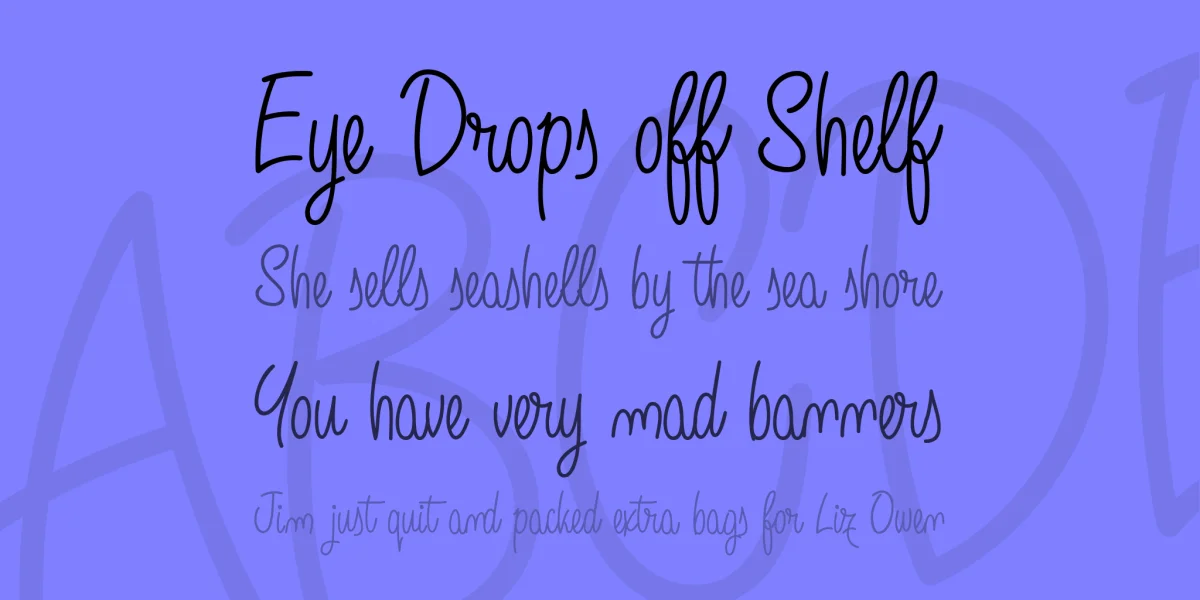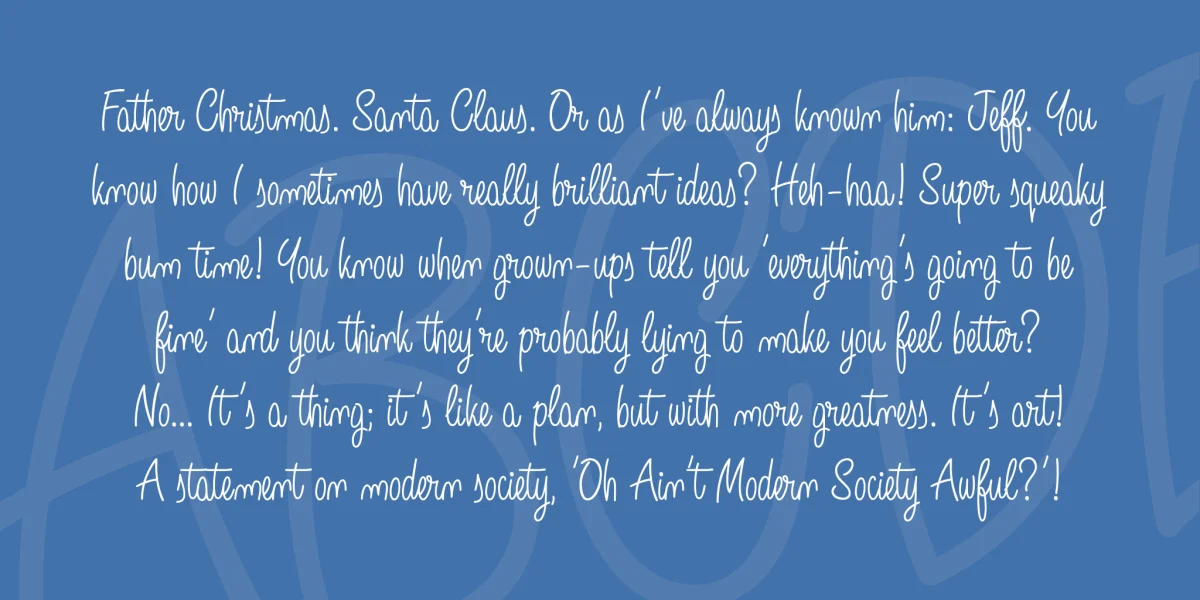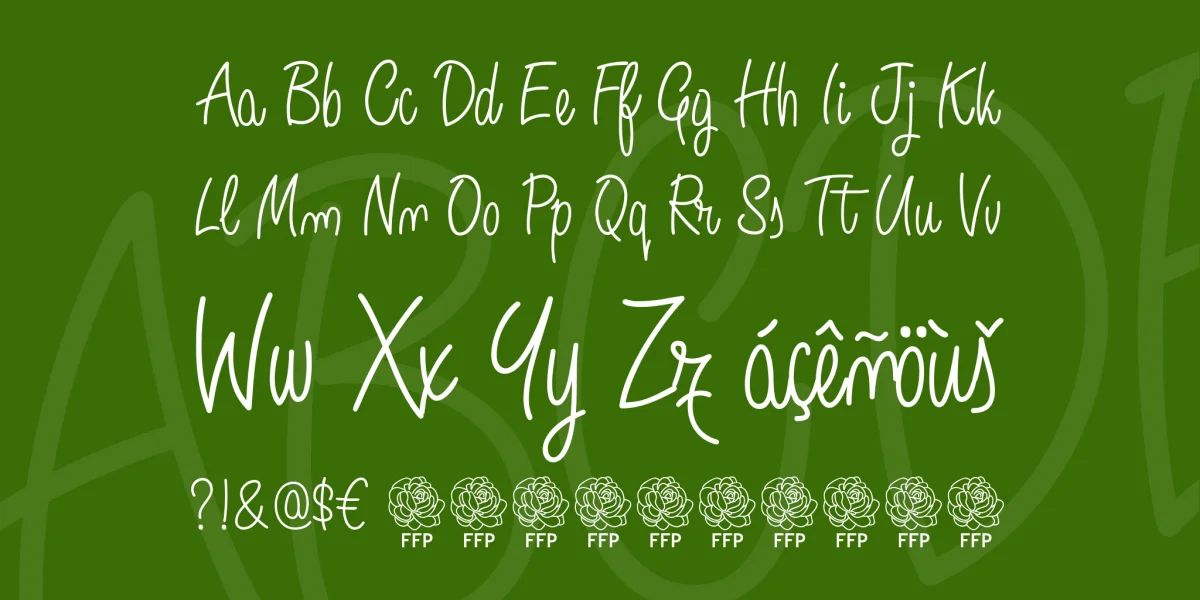
The Angelique Rose font is hand drawn with pen and then digitized for use in computers, it is ideal for designing posters, headlines, wedding invitations or any text where a contrast between manual style look over other neutral fonts as Sans or Serif.